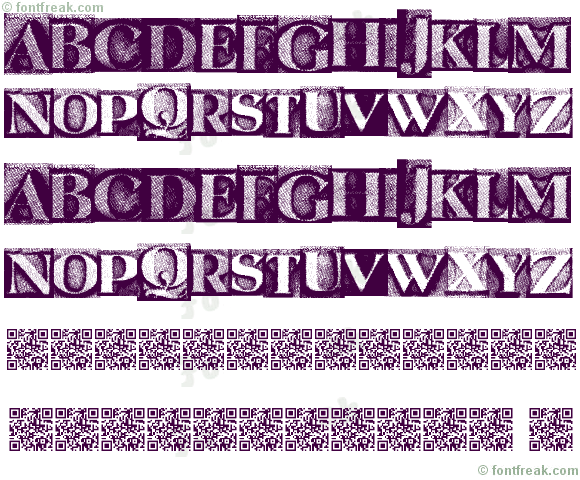
MetalBlockSerif
About MetalBlockSerif
Introducing the MetalBlockSerif font by XEROGRAPHER FONTS, a striking serif typeface that blends boldness with vintage charm. Released in 2013, this font is designed for those seeking a unique, eye-catching typography solution. With its robust stroke weight and moderate contrast, MetalBlockSerif showcases a distinct personality that captures attention. The spacing is carefully crafted, allowing for readability while maintaining a commanding presence. The font features decorative elements that evoke a classic look, making it perfect for a variety of design projects.
MetalBlockSerif is an excellent choice for a range of creative applications. Its bold, serif style makes it ideal for movie posters, where it can convey drama and excitement. Additionally, this font is perfect for branding small businesses, particularly those in the arts, crafts, or vintage markets, where a retro aesthetic can enhance the overall appeal. Wedding invitations can also benefit from the elegant yet bold flair of MetalBlockSerif, adding a touch of sophistication to any celebration. Furthermore, it works wonderfully for restaurant menus, especially those aiming for a rustic or artisanal vibe.
What makes MetalBlockSerif exceptional is its ability to blend modernity with a vintage aesthetic, ensuring your designs are not only memorable but also timeless. Whether you're creating promotional materials or personal projects, this font will elevate your work and leave a lasting impression.